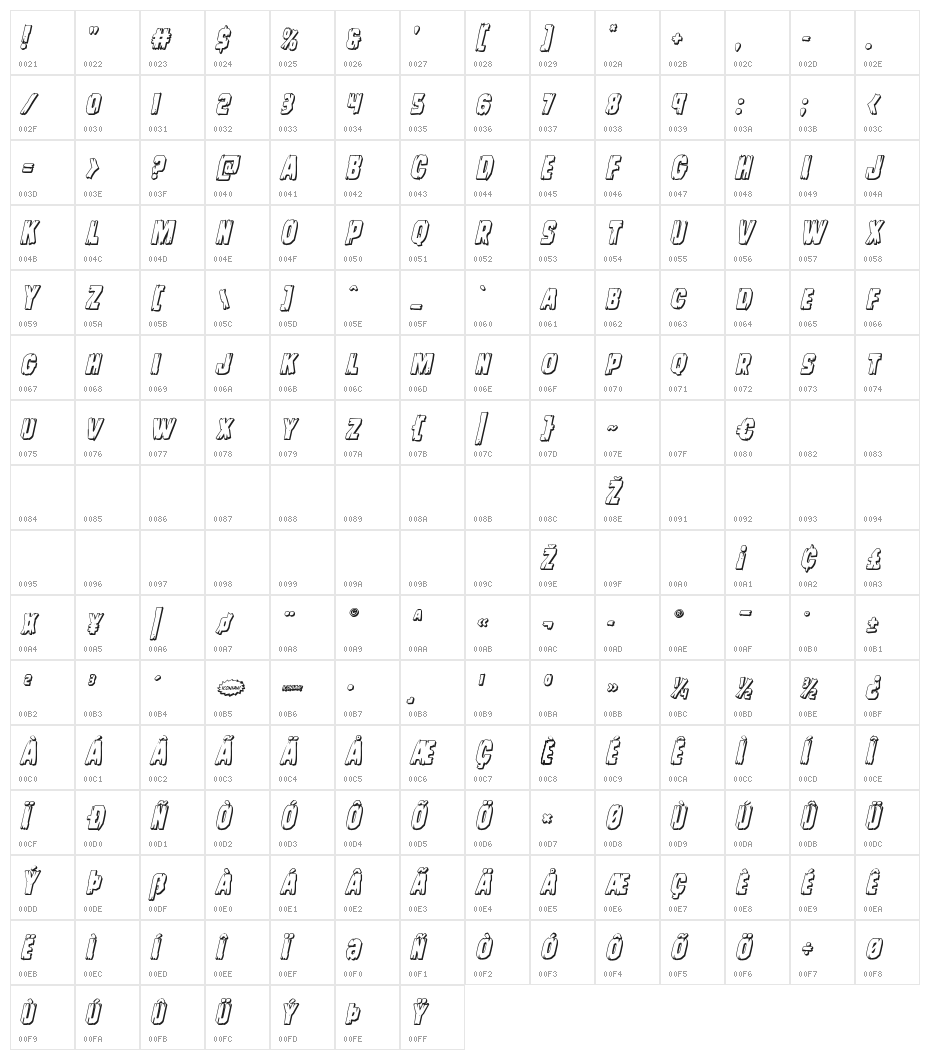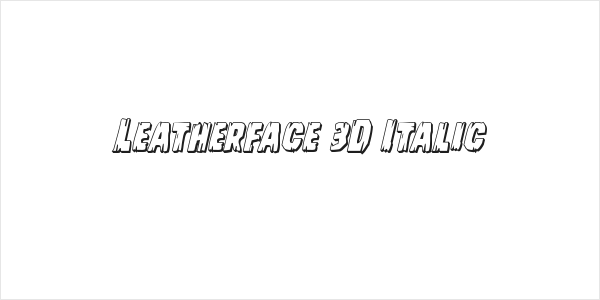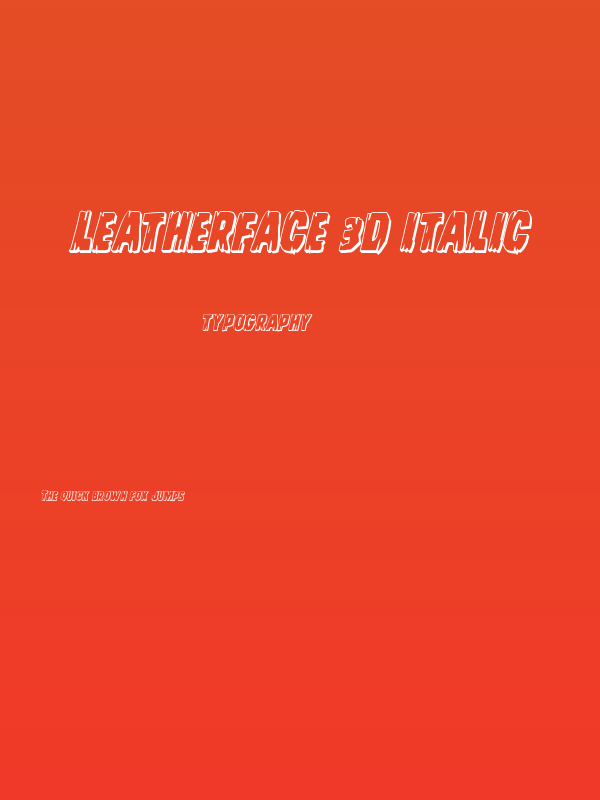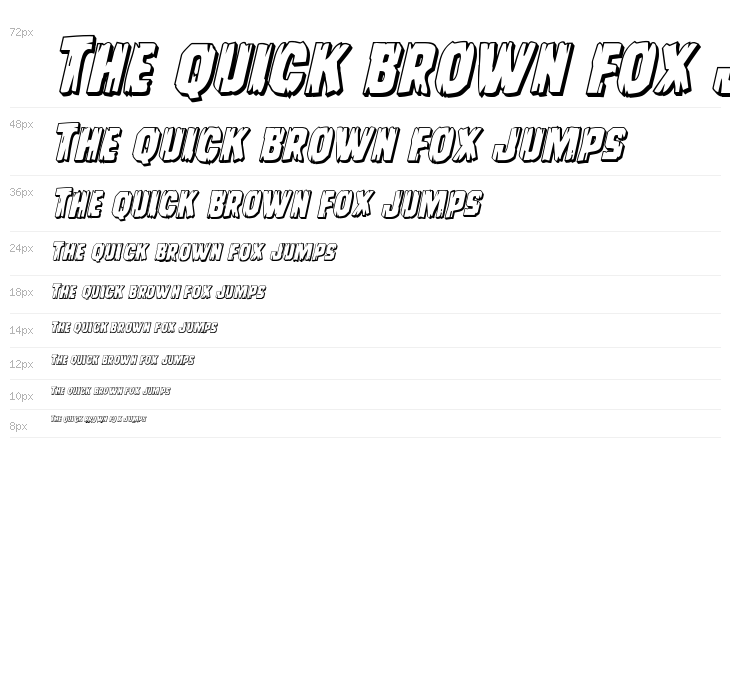
Leatherface 3D Italic Font
Leatherface 3D Italic Description
This font features a bold, three-dimensional style with a distinct italic slant, giving it a dynamic and impactful appearance. The characters are designed with sharp edges and a rugged texture, reminiscent of a distressed or worn look. This adds a unique, edgy feel to the font, making it stand out in any design. The uppercase and lowercase letters maintain a consistent style, with numbers and special characters following suit. The overall aesthetic is bold and eye-catching, suitable for designs that require a strong visual presence.
| Proposed Projects | Ideal for posters, video game titles, horror-themed designs, and bold branding projects. |